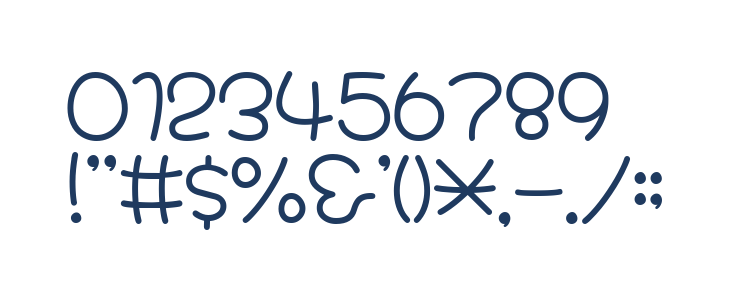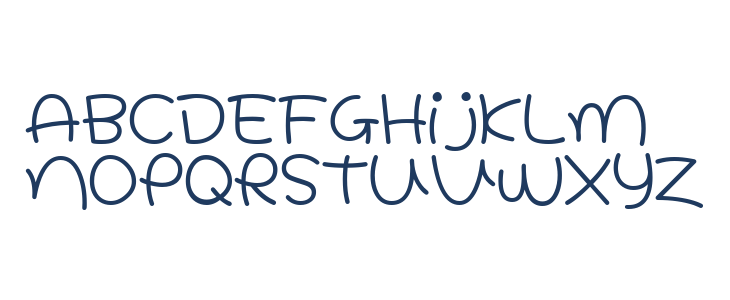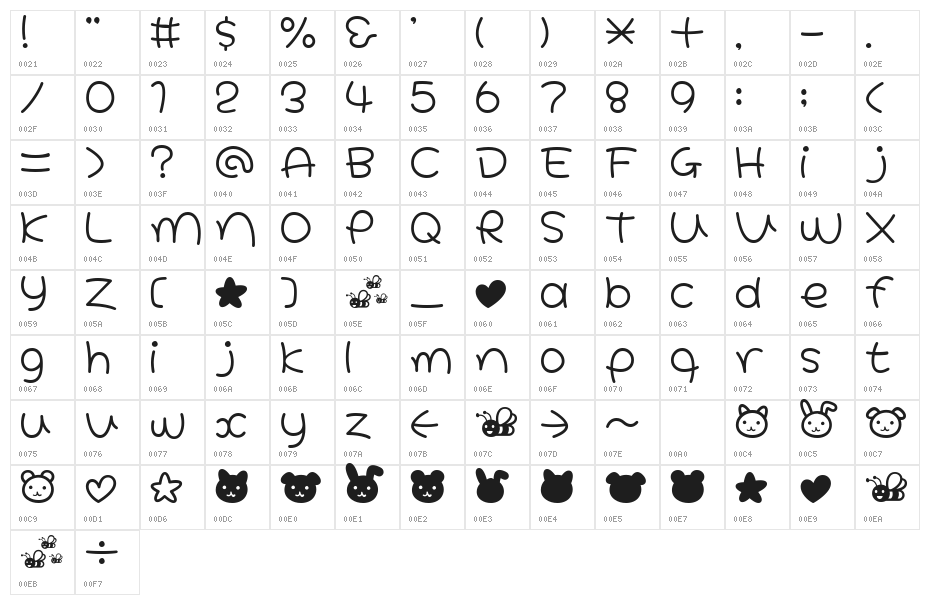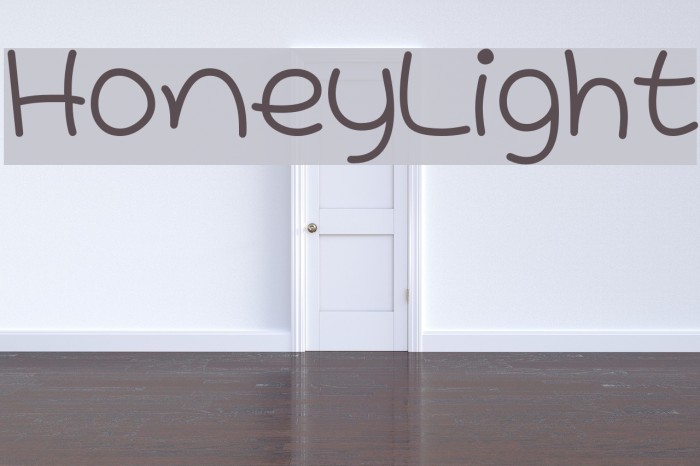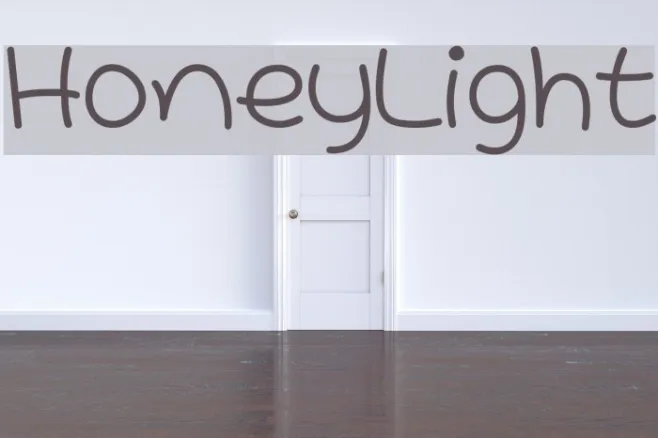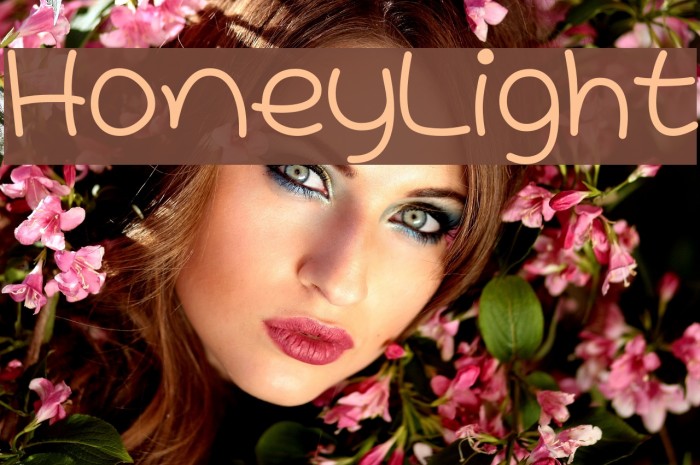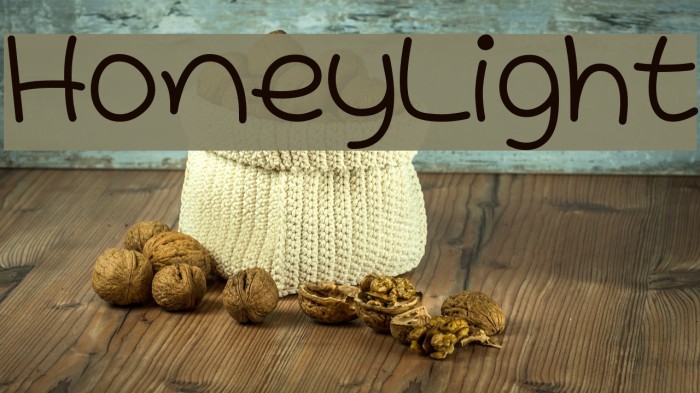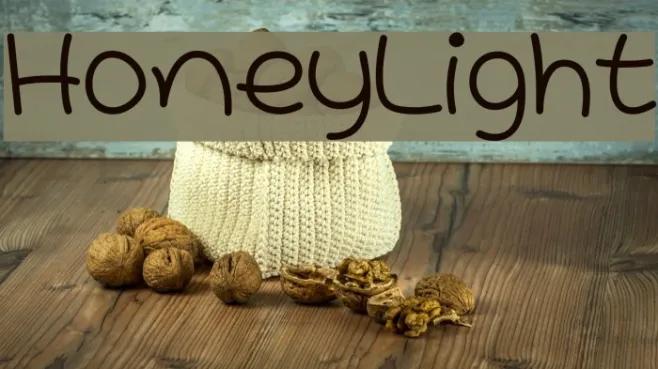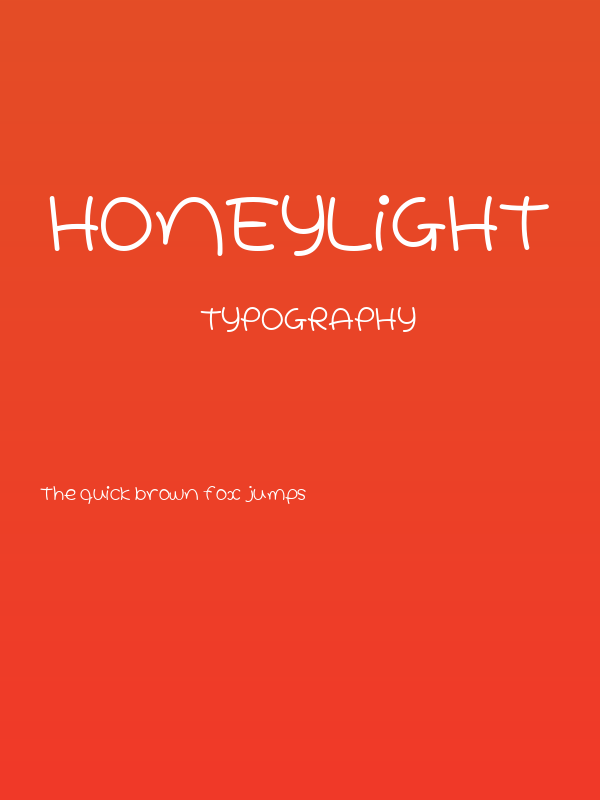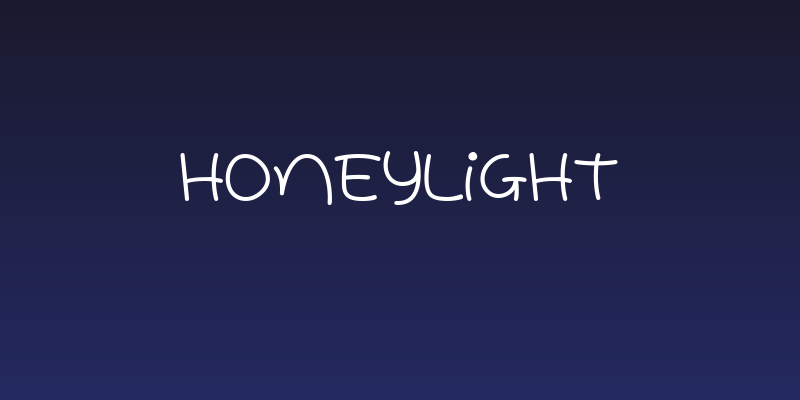
HoneyLight Font
HoneyLight Description
This playful and whimsical font features rounded, smooth curves and a casual handwritten style. The letters are evenly spaced with a consistent stroke width, giving it a friendly and approachable appearance. The characters have a slight bounce, adding to the font's charm and making it ideal for informal and creative projects. The numbers and special characters maintain the same playful aesthetic, ensuring a cohesive look across all text elements.
| Proposed Projects | Ideal for children's books, greeting cards, playful branding, and creative projects. |